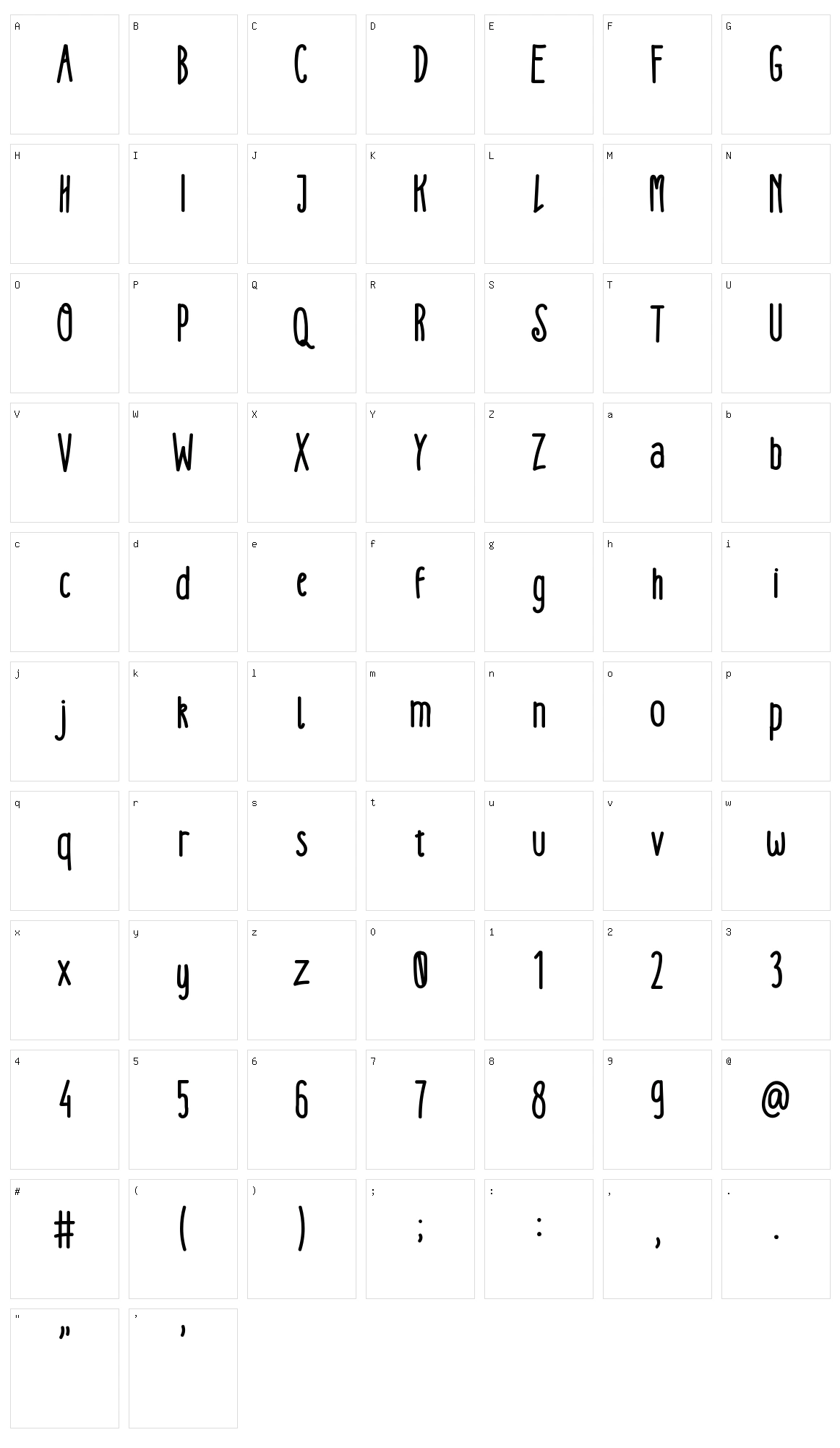
The free font Kedjoe is carefully designed by Masteh Studio, showcasing a thoughtful balance of creativity and usability and falls under the Script font style. When you download the ZIP file, it contains only 9.1 KB of font files, making it lightweight and quick to download. Please review the license details below to understand permitted usage and distribution rights. If license information is not available, we recommend using this font for personal projects only or contacting the author directly for commercial usage permissions.